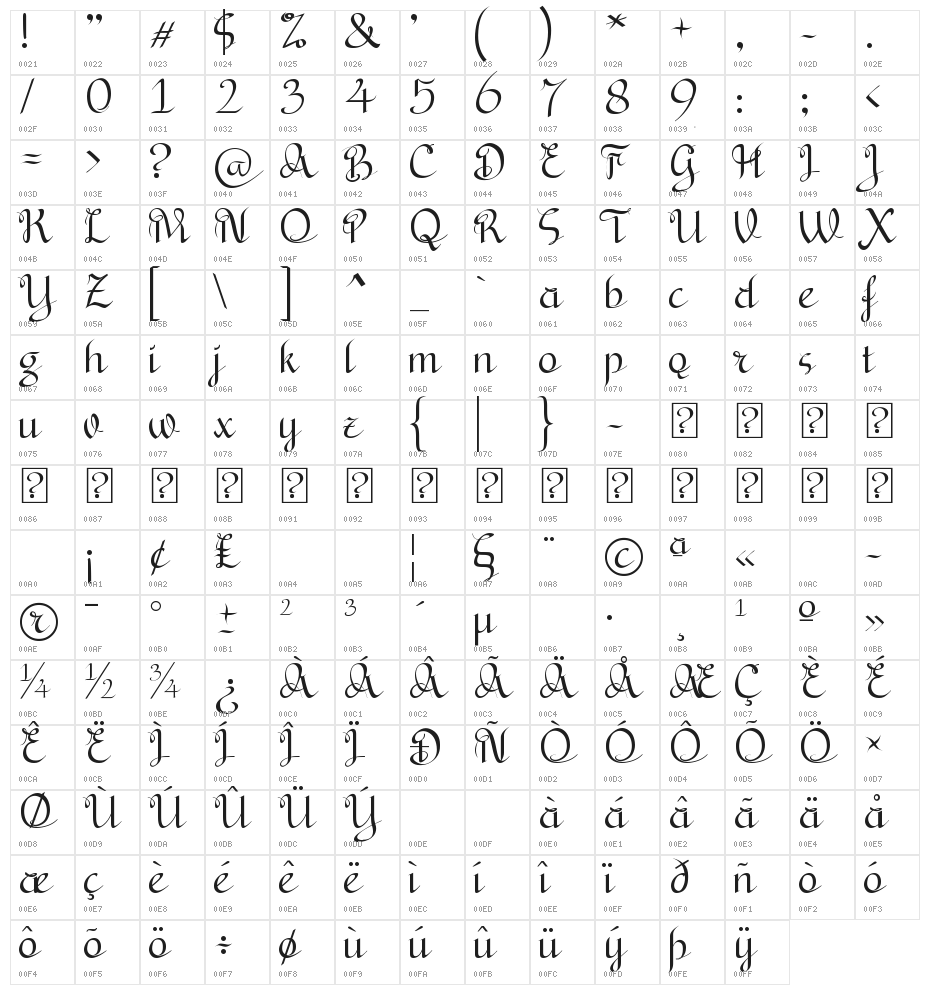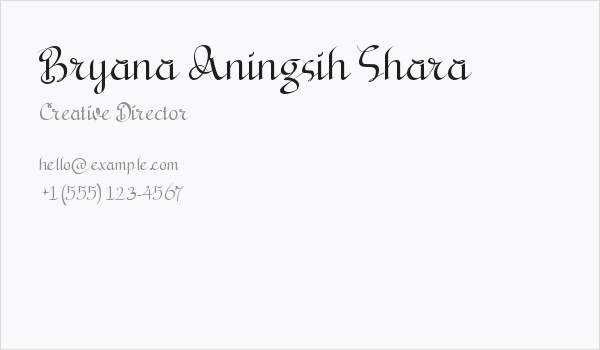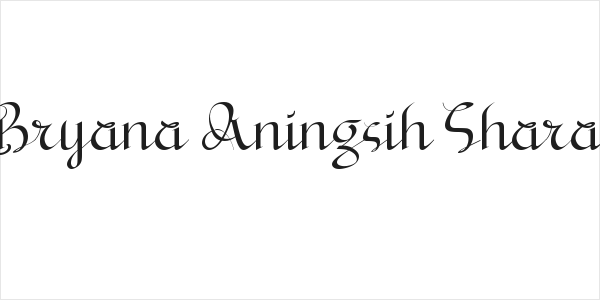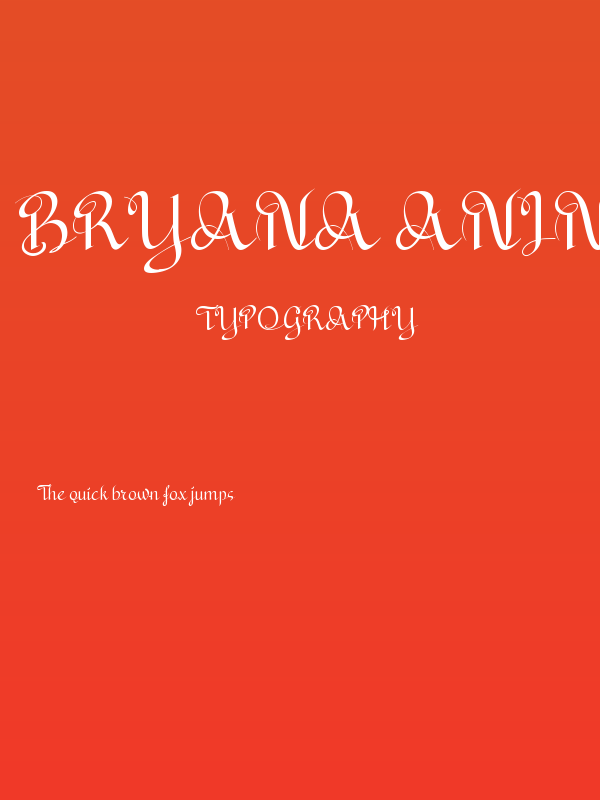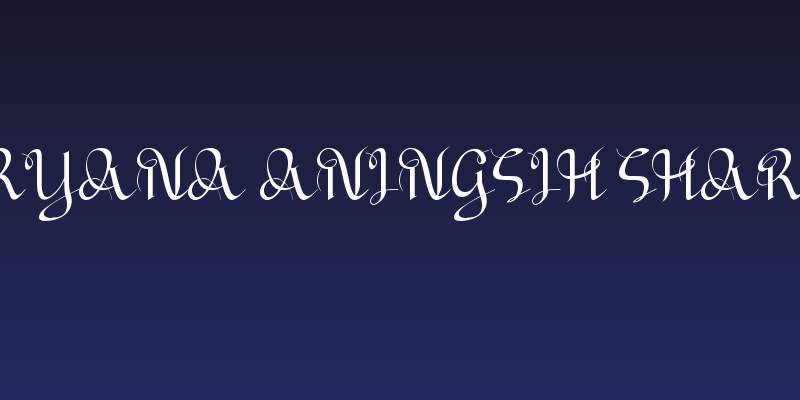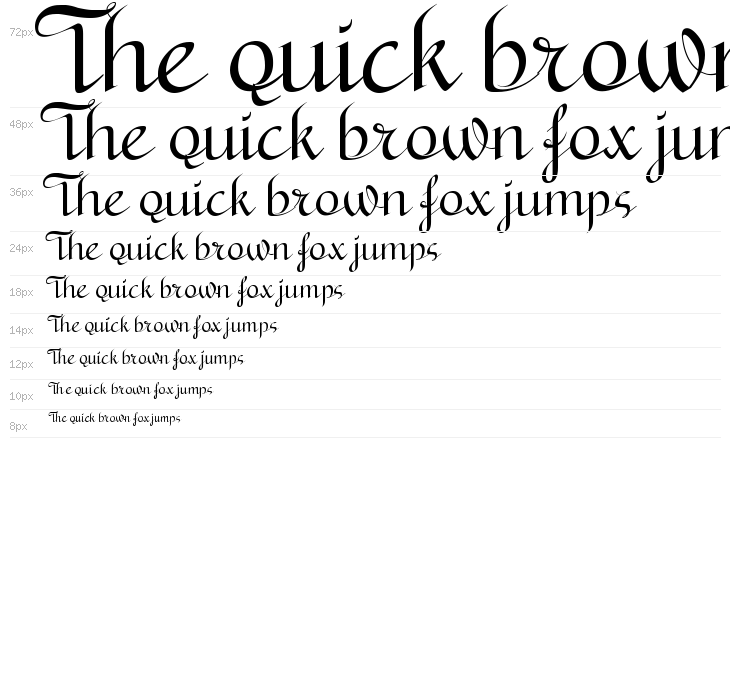
Bryana Aningsih Shara Font
Bryana Aningsih Shara Description
This font features an elegant and flowing script style, characterized by its intricate and decorative letterforms. The uppercase letters exhibit a graceful, calligraphic flair with sweeping curves and delicate serifs, while the lowercase letters maintain a consistent fluidity, enhancing readability. The numerals are designed with a similar elegance, ensuring a cohesive look across all characters. Special characters are thoughtfully integrated, maintaining the overall aesthetic. This font's sophisticated design makes it ideal for projects that require a touch of refinement and artistry.